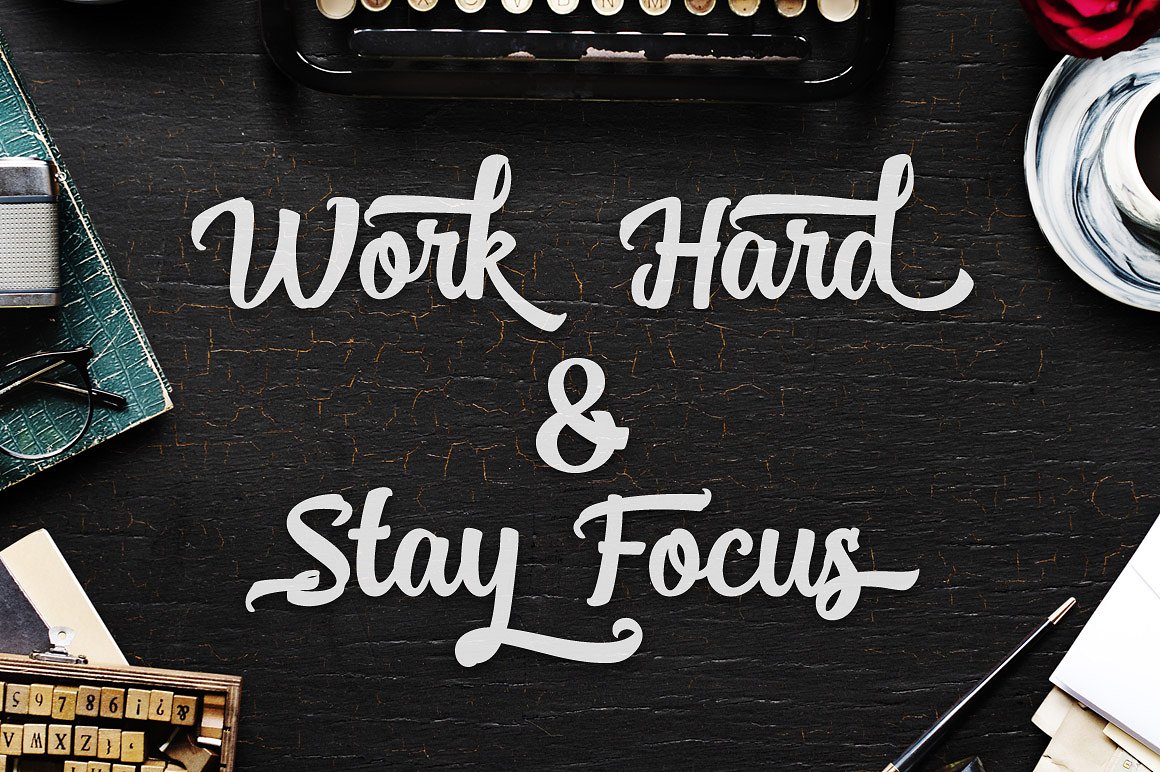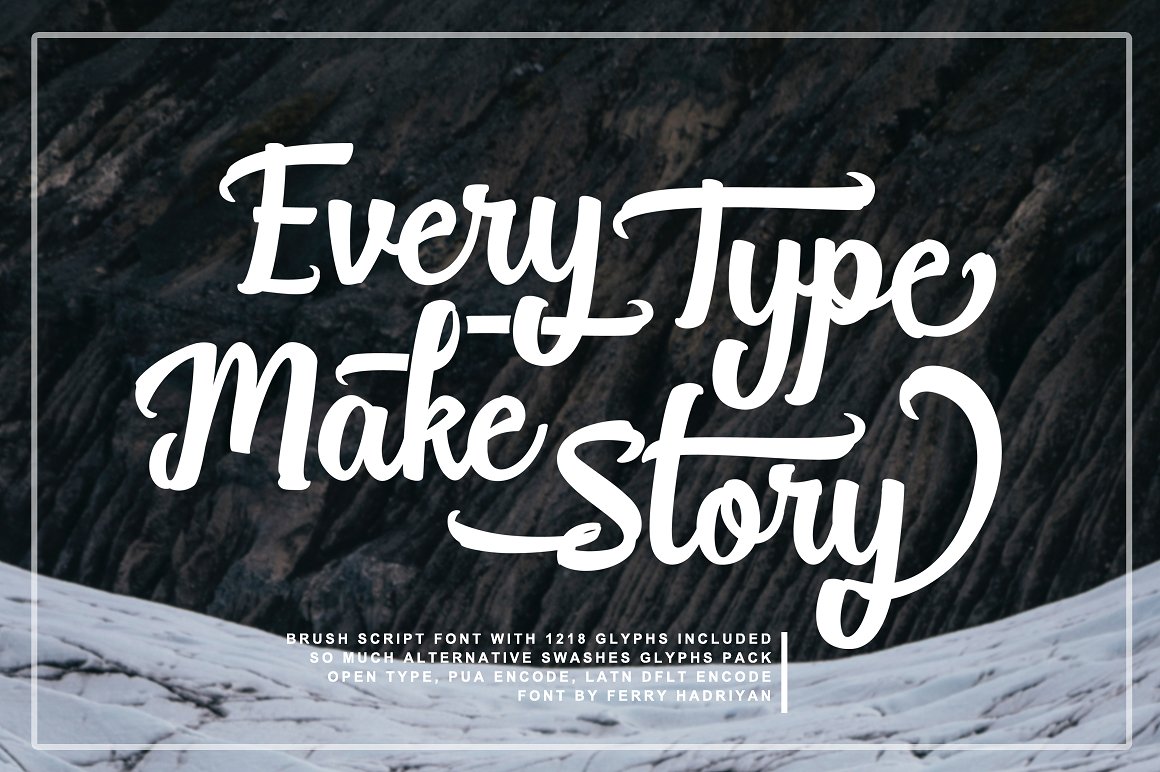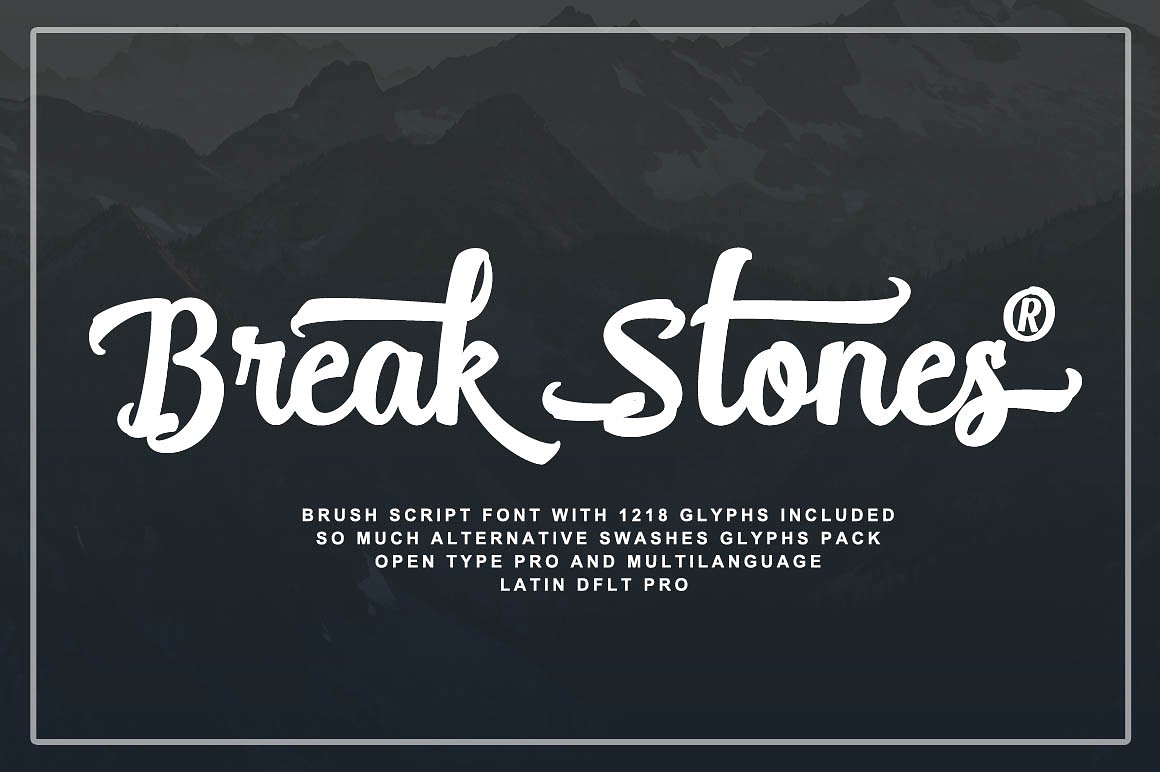
Break Stones Script Brush Font
Introducing Break Stones. It is designed and shared by FeyTypeDesign. Break Stones is Script Brush Font with Vintage Style, include 1218 Glyphs and so much opentype feature include of the font. Suitable for design, element design, wedding, event, t-shirt, logo, badges, sticker, and awesome work, etc…